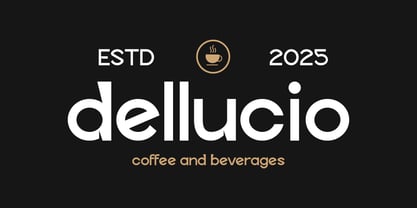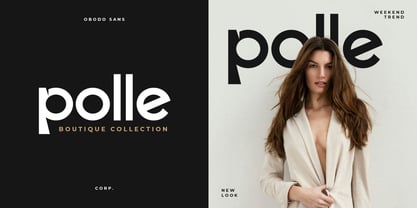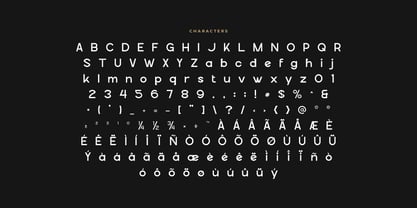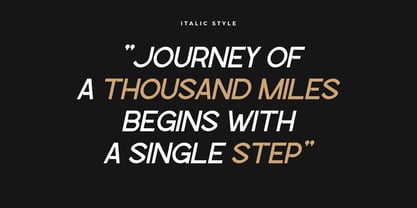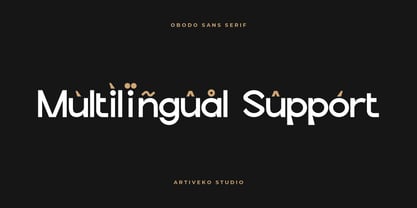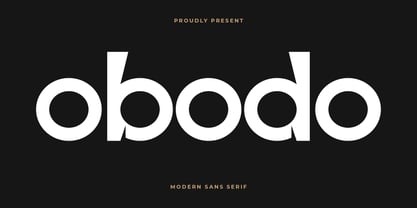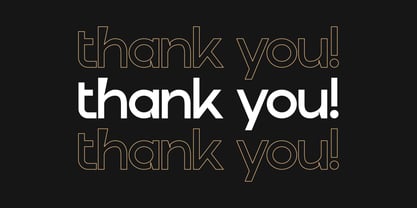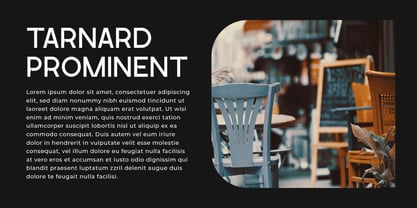
Obodo
by Artiveko
The Obodo Font Family was designed by Iwan Alwan and published by Artiveko. Obodo contains 2 styles and family package options. More about this family
Obodo is a modern sans serif font that combines clean lines with a bold, confident personality. Designed to make a strong visual impact, Obodo is perfect for branding, headlines, posters, websites, and social media graphics. Its minimalist structure ensures clarity, while its geometric touches add a sense of modern professionalism.
From the very first glance, Obodo stands out with its sleek and contemporary form. Whether you're building a tech brand, launching a new product, or crafting a stylish editorial layout, this font adapts effortlessly. It supports multilingual characters, includes basic punctuation, and features both uppercase and lowercase styles for maximum flexibility.